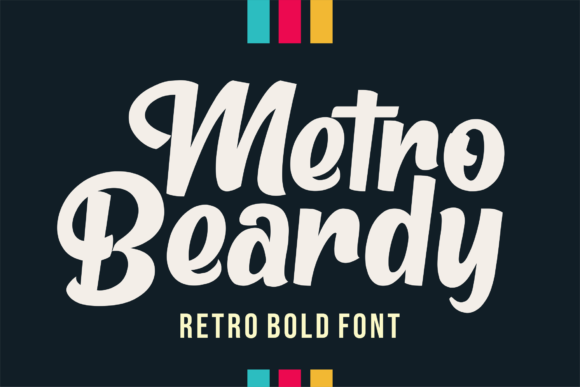
Prepare yourself for the arrival of Metro Beardy, the display font that will serve as your time machine to the golden era! Immerse yourself in the realm of nostalgia and give your designs a truly iconic touch that will leave an everlasting impression.
Metro Beardy is a charismatic font that carries the essence of vintage charm. Its playful nostalgia evokes a sense of timeless appeal that seamlessly blends with modern aesthetics. Unleash your creativity and let your imagination soar as you witness the transformation of your designs into masterpieces adorned with the elegance of yesteryear.
Whether you're crafting eye-catching logos, creating captivating social media posts, or fashioning invitations with a touch of vintage flair, Metro Beardy will prove to be your steadfast companion. Its adaptability extends to a wide range of design concepts, making it the go-to choice for designers seeking a font that exudes both style and substance.
With Metro Beardy as your creative ally, your designs will transcend the boundaries of the ordinary and leave an indelible mark on the minds of your audience. Its nostalgic charm possesses the power to evoke emotions and forge connections, making it the ideal font for creating designs that speak to the heart.
Step into a world of timeless appeal and let Metro Beardy guide your designs towards greatness. Embrace the nostalgic charm and watch as your creations transform into works of art that radiate an aura of enduring elegance. Join the countless designers who have harnessed the power of Metro Beardy and witnessed the transformative impact it has had on their work.